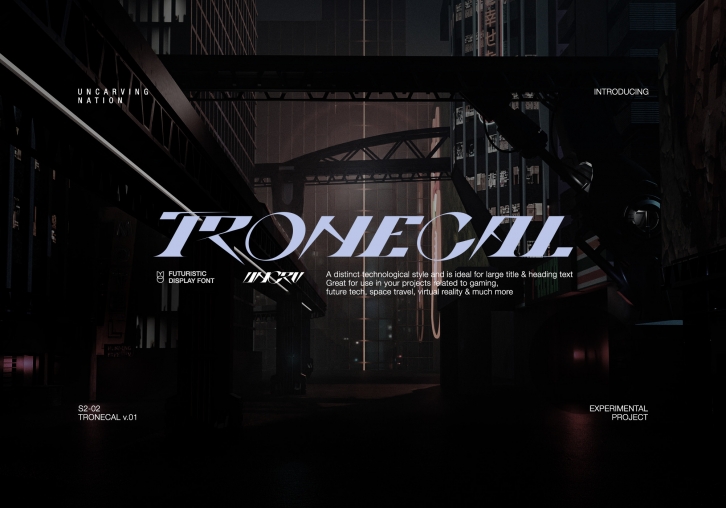
Tronecal is a modern and cool display font. With smooth, futuristic lines and just a touch of contrast, Tronecal works beautifully for logos, branding, and web headings.
Add this font to your most creative ideas, and notice how it makes them stand out!